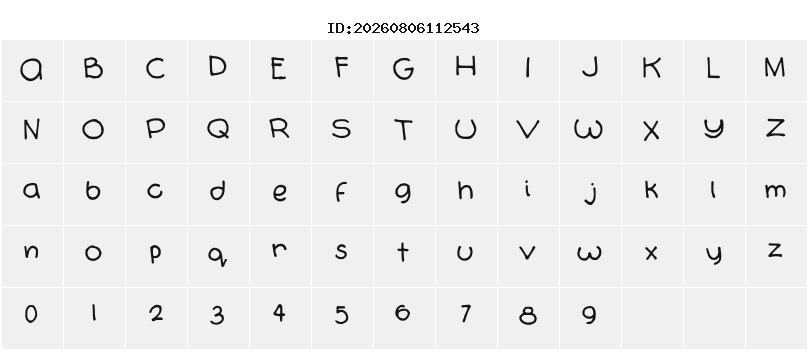
Orbicularis Preview
• Font Name: Orbicularis
• Full Font Name: Orbicularis
• PostScript Name: Orbicularis
About Orbicularis.otf
Orbicularis.otf is a modern, elegant sans-serif font designed for ultimate readability and visual harmony. Perfect for branding, headlines, web design, and print materials.